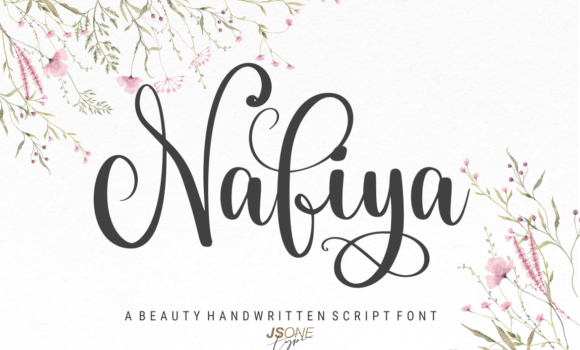
nafiya
Nafiya Font – Free Download Introduction to Nafiya Font Nafiya is a delicate, elegant, and stylish handwritten font. 📸 Preview Gallery 6 images 📌 Product Name Nafiya Font 👤 Author jsonetype 📂 Category Explore ⬇️ Download Nafiya Font FREE Free